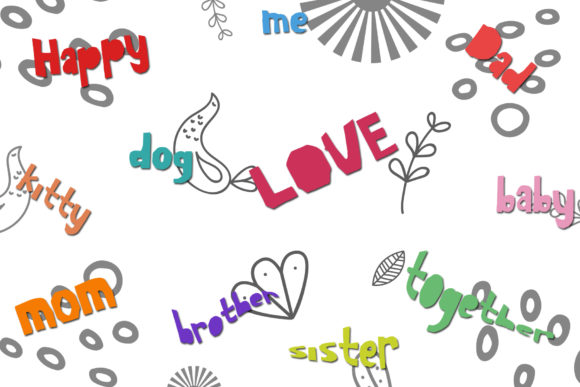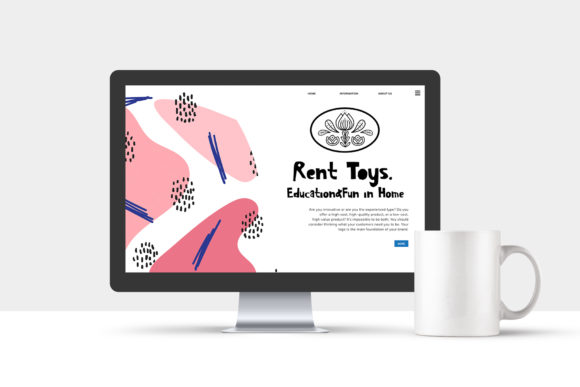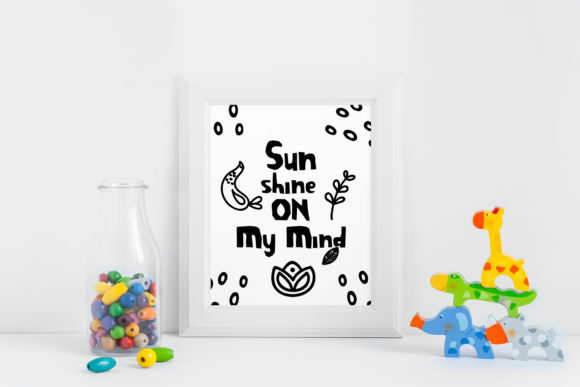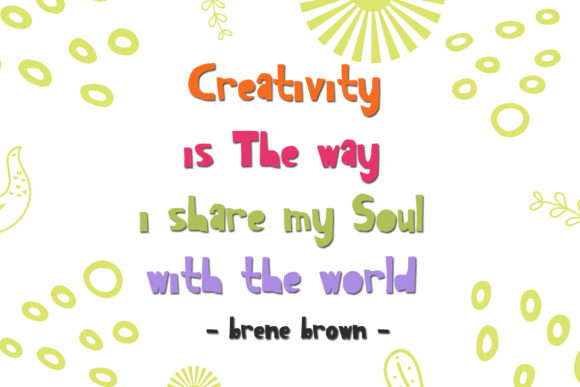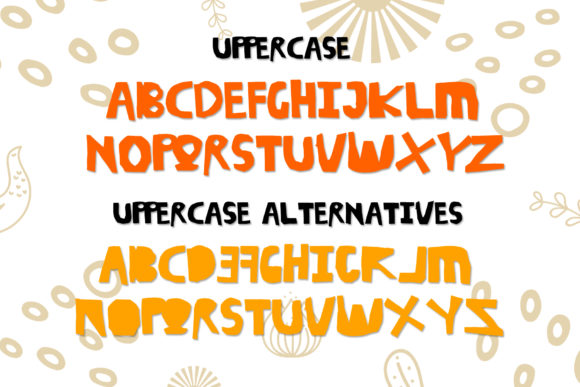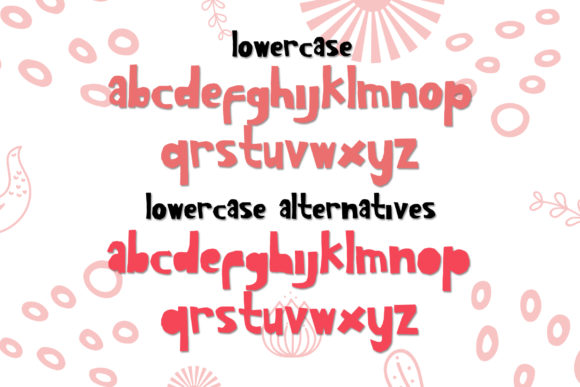
Introduction to Skit Cut Font
Have you ever been working on a design project, pouring your heart and soul into it, only to feel like something’s missing? A spark of creativity that could elevate your work from good to great? For designers, this feeling is all too familiar, and it’s precisely where the Skit Cut Font comes in – a free download that can add a playful twist to your next creative project.
As a valuable design resource, Skit Cut Font is perfect for those looking to infuse their work with a touch of whimsy. Its high-quality, transparent background makes it easy to integrate into any design, whether you’re working on a digital or print project. With Skit Cut Font, you can bring a smile to your audience’s face and make your design stand out from the crowd.
Skit Cut Font Key Features
- High-quality design resource suitable for various creative projects.
- Unique, modern design with a mix of geometric and sans-serif elements.
- Suitable for use in digital and print projects, including logos, graphics, and text-based designs.
Honest Review: Skit Cut Font
I recently stumbled upon the Skit Cut Font while searching for the perfect design resource for my latest creative project. As a designer, I’m always on the lookout for high-quality fonts that can elevate my work.
What works well: ✨ The font has a unique, modern aesthetic that’s perfect for creative projects. The letterforms are clean and well-crafted, making it easy to read and use. The font also comes with a range of weights and styles, giving me plenty of options to choose from.
Limitations: ⚠️ The font may not be suitable for projects that require a more traditional or serif font style. Additionally, the font may not be as versatile as some other design resources, but for the right project, it’s a great choice.
Overall, I’m impressed with the Skit Cut Font and would definitely recommend it to fellow designers looking for a high-quality, modern font. With its transparent background and range of weights and styles, it’s a great addition to any design resource library.
- Unique, modern aesthetic
- Range of weights and styles
Skit Cut Font
Skit Cut Font is a high-quality design resource that offers a unique and creative way to add a touch of elegance to your projects. With a transparent background, this font is perfect for any design project that requires a sophisticated look.
Tips for Getting the Most Out of Skit Cut Font
To get the most out of Skit Cut Font, try using it in combination with other design elements, such as images or graphics, to create a visually appealing design.
Skit Cut Font is perfect for any creative project that requires a touch of elegance, such as: